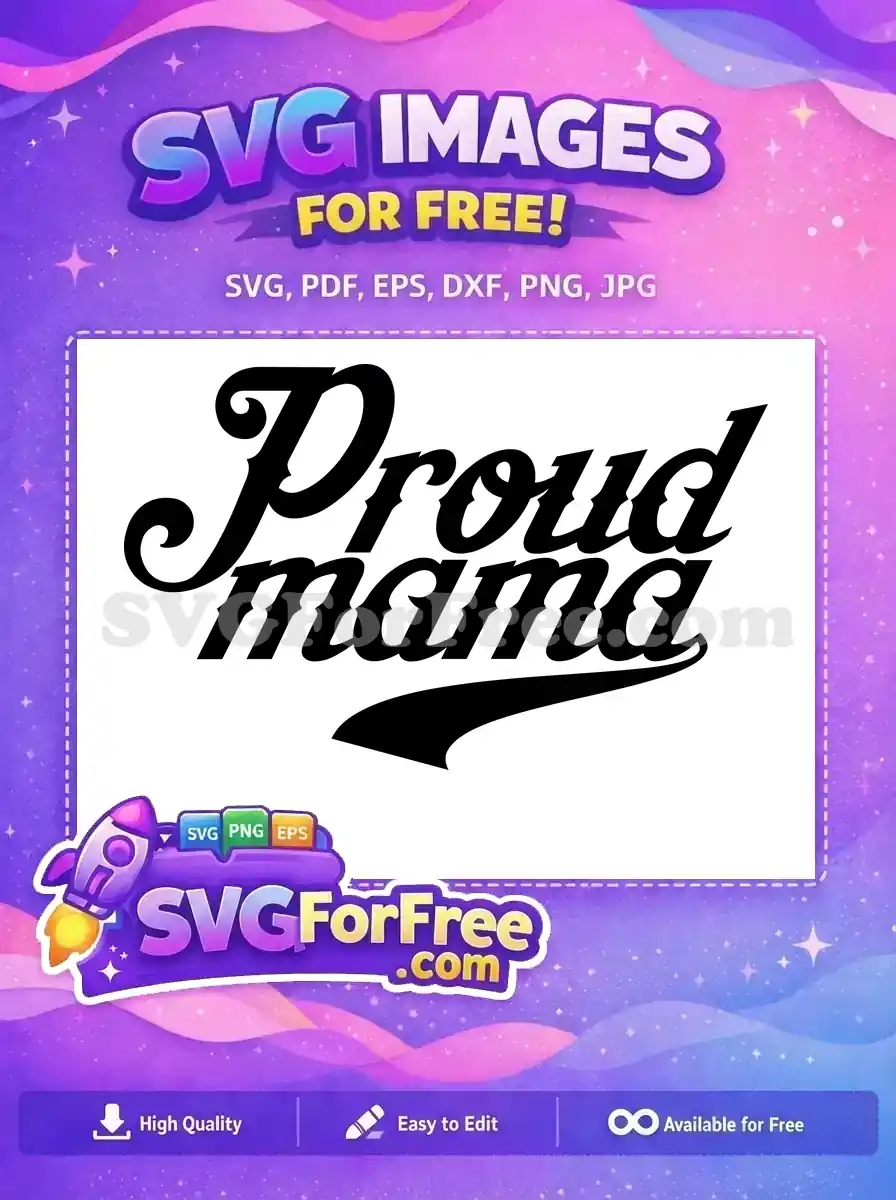
A “Proud Mama” design with a mix of script and print fonts, a simple and heartfelt free graphic.
Free Script Font Free Tail Design Proud Mama Free SVG